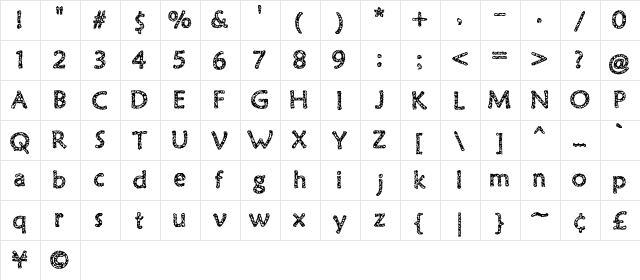
Old Virus Regular
Design Context for Old Virus Typeface
Old Virus is a composed and adaptable typeface that performs quietly and consistently across a wide range of design contexts.